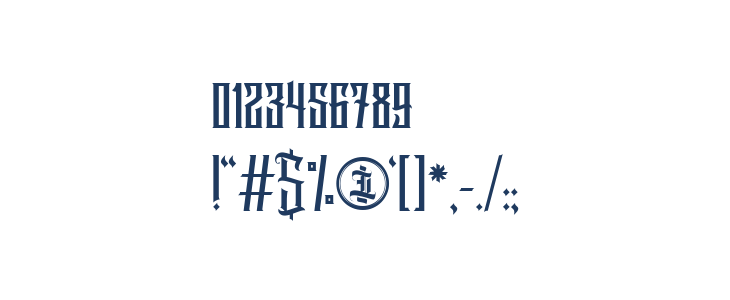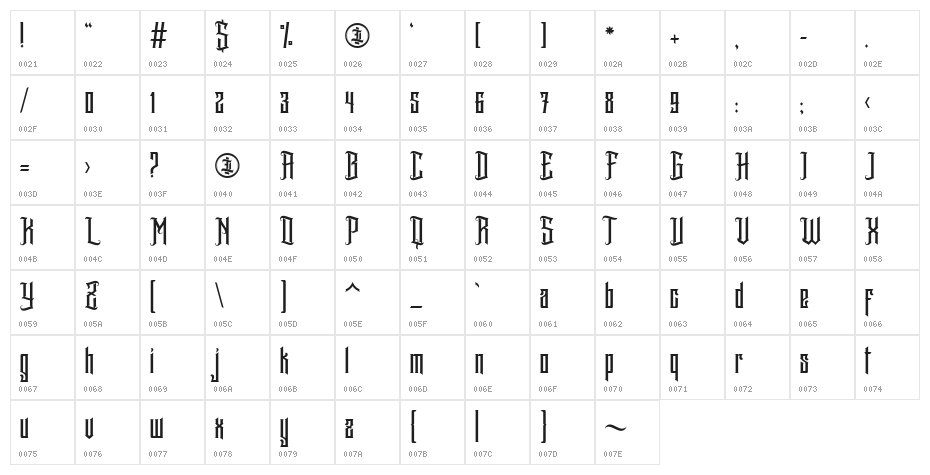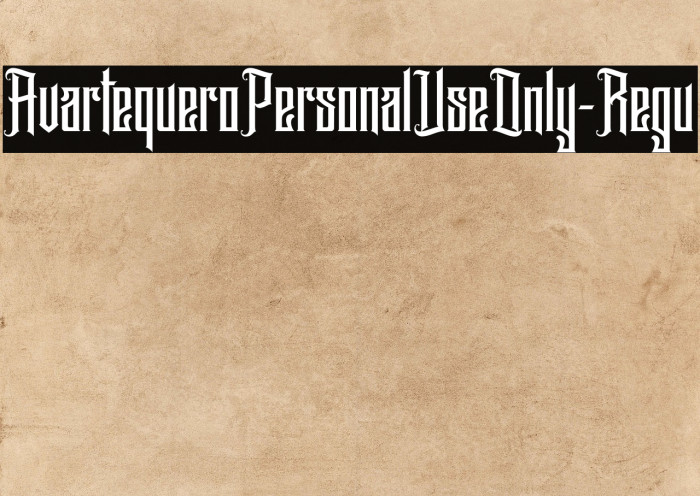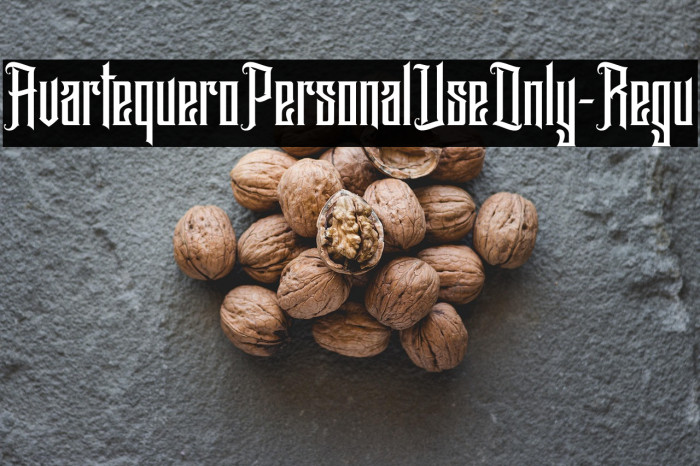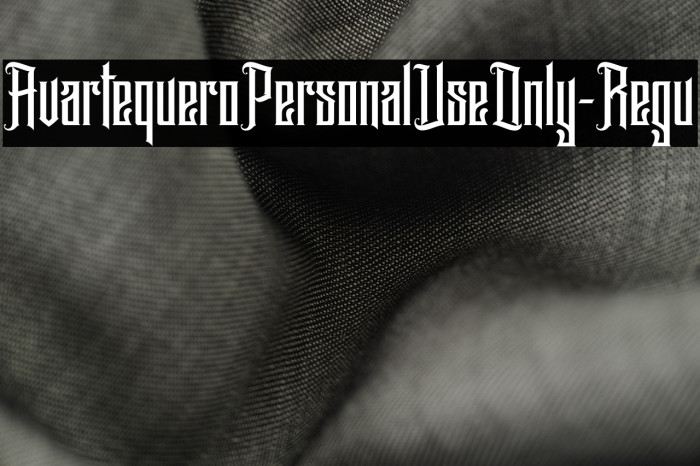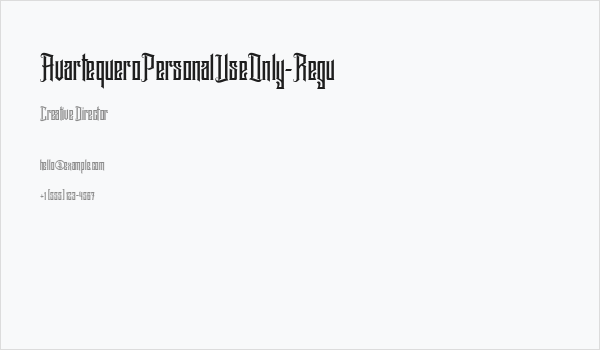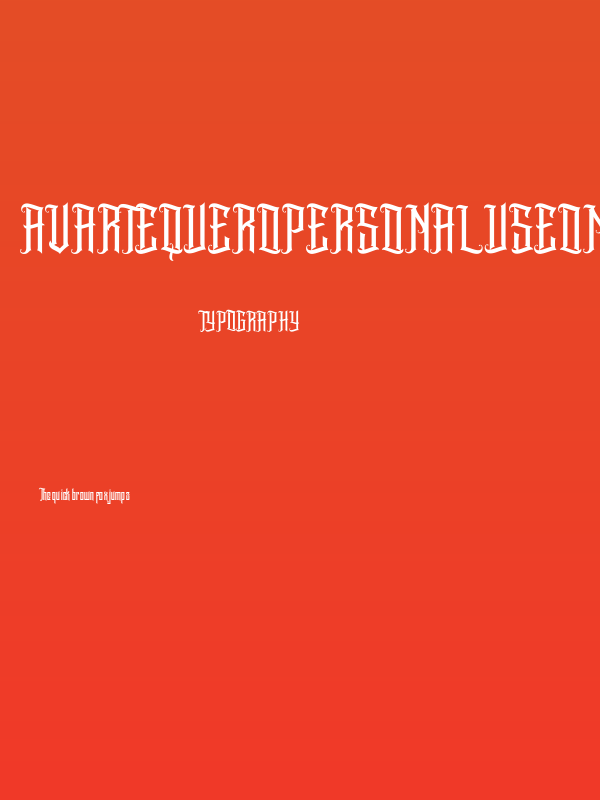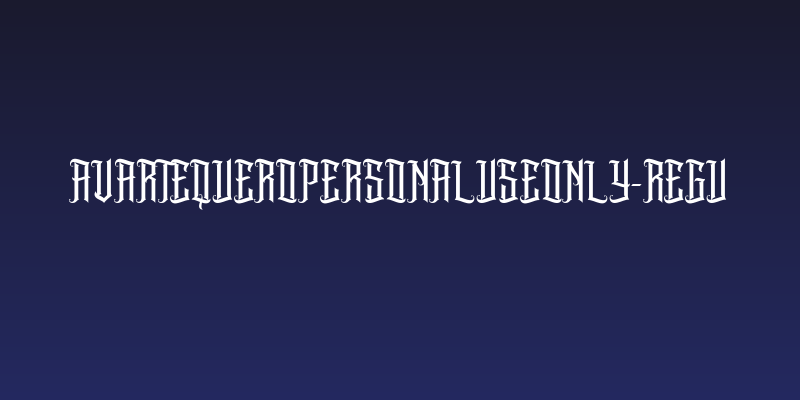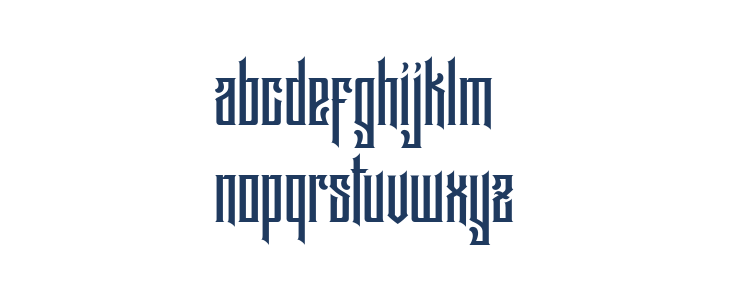
AvartequeroPersonalUseOnly-Regu Font
AvartequeroPersonalUseOnly-Regu Description
This font features a bold and striking blackletter style, characterized by its sharp, angular lines and intricate detailing. The uppercase letters are tall and narrow, with a strong vertical emphasis, while the lowercase letters maintain a consistent style with slightly more curves. The numbers and special characters are designed to match the overall aesthetic, providing a cohesive look. This font exudes a sense of tradition and authority, often associated with historical or formal contexts.
Overall StyleVintage
Use CaseLogos, Headlines, Certificates
Proposed ProjectsIdeal for projects requiring a historical or formal touch, such as certificates, invitations, or branding for traditional products.